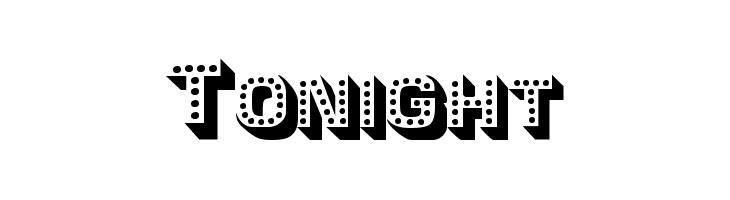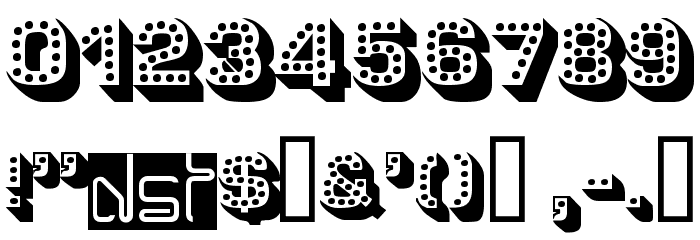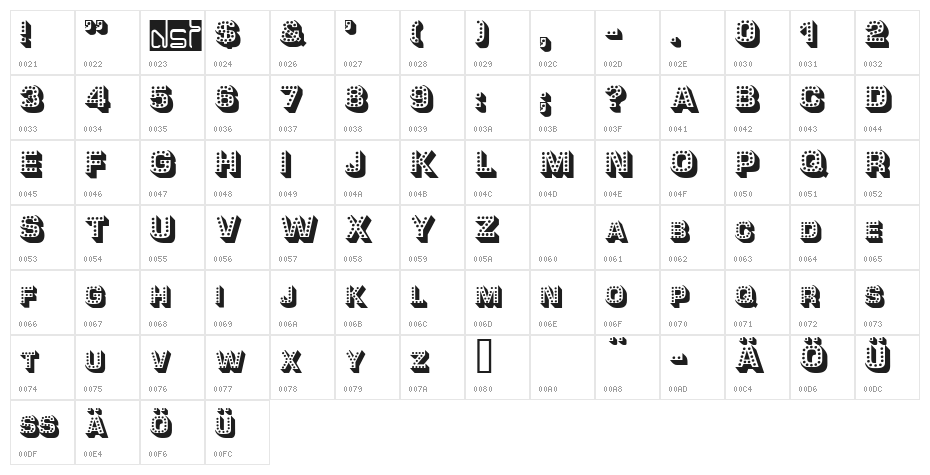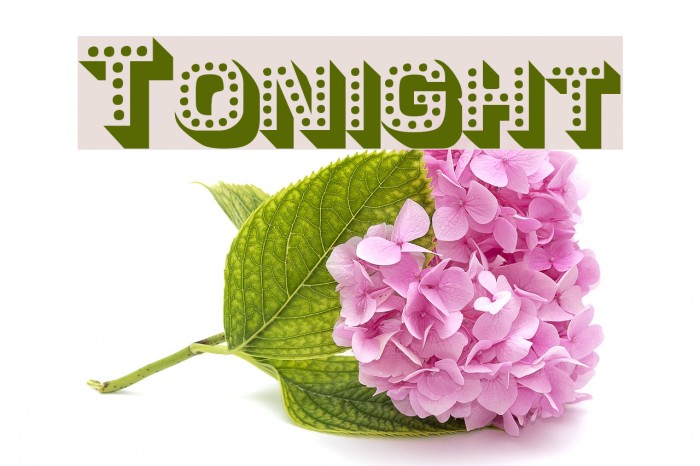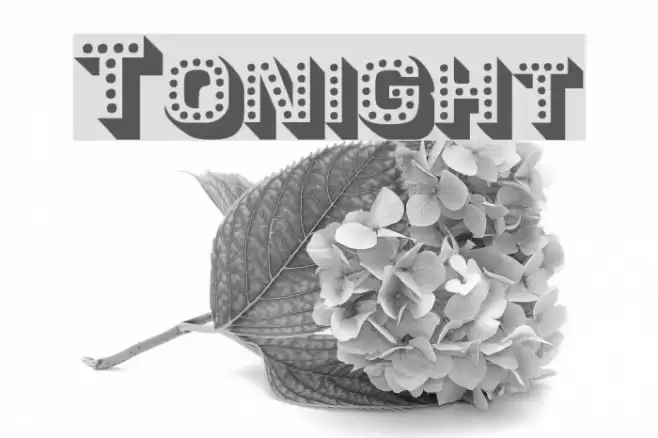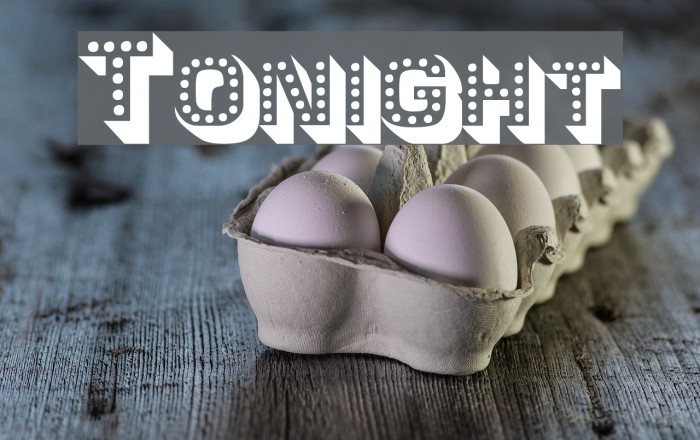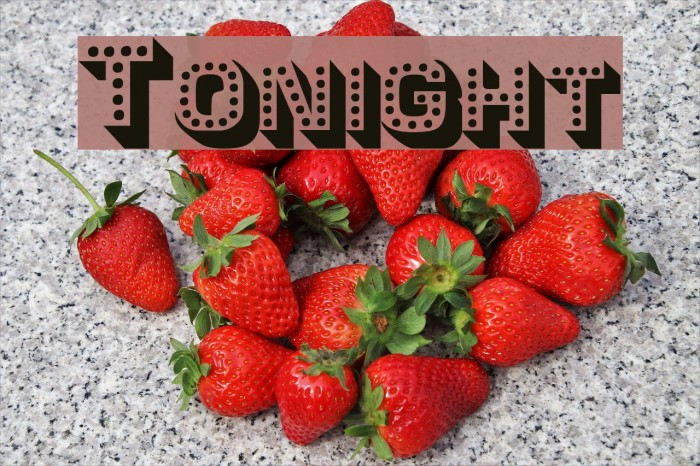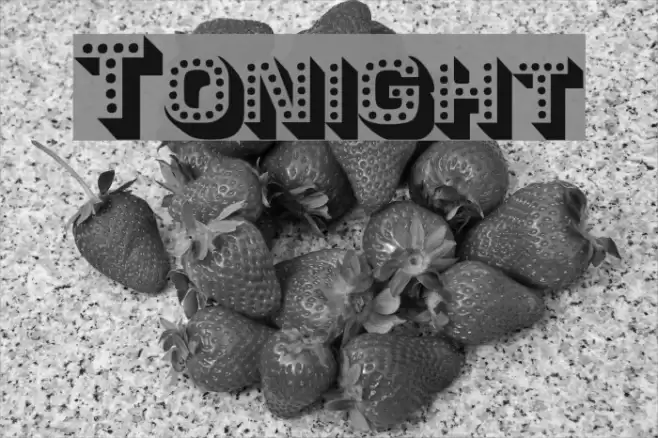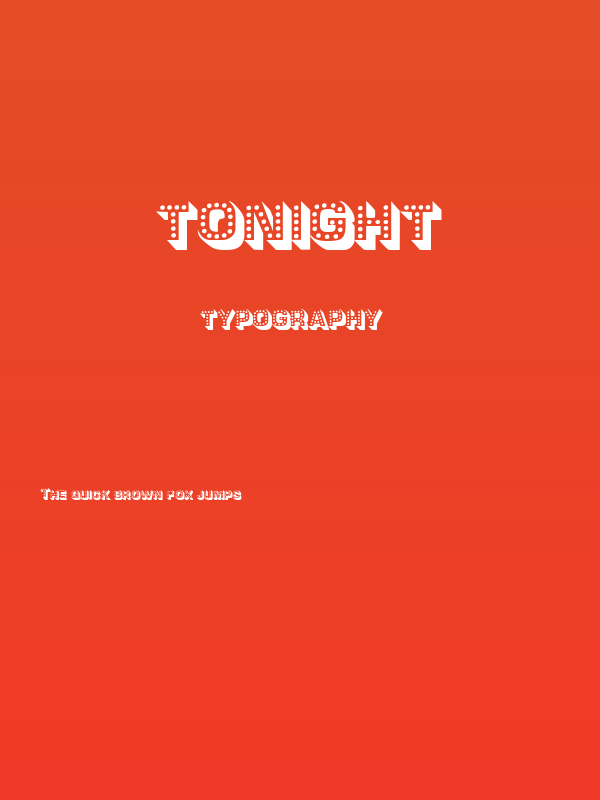
Tonight Font
Tonight Description
This font is a bold, decorative display typeface with a unique dotted pattern inside each character, creating a lively and eye-catching effect. The letters are uppercase and lowercase, with numbers and special characters included. The style is reminiscent of marquee lights, making it ideal for attention-grabbing designs. The shadow effect adds depth, enhancing its three-dimensional appearance. The overall look is playful and dynamic, suitable for projects that require a fun and engaging visual impact.
| Proposed Projects | Perfect for posters, event invitations, signage, and any project needing a vibrant, attention-grabbing typeface. |